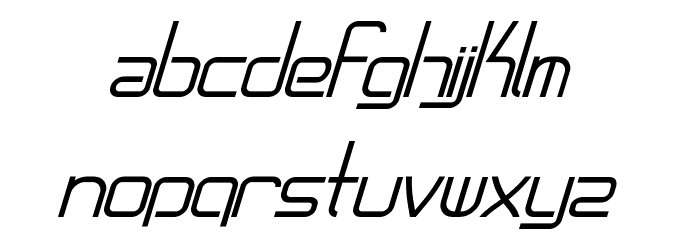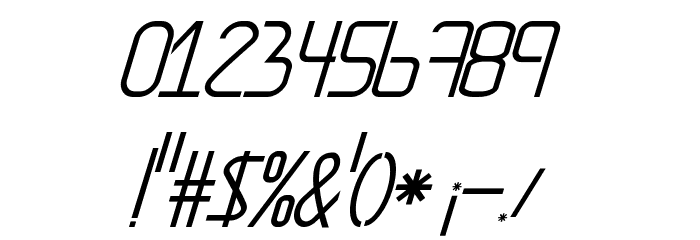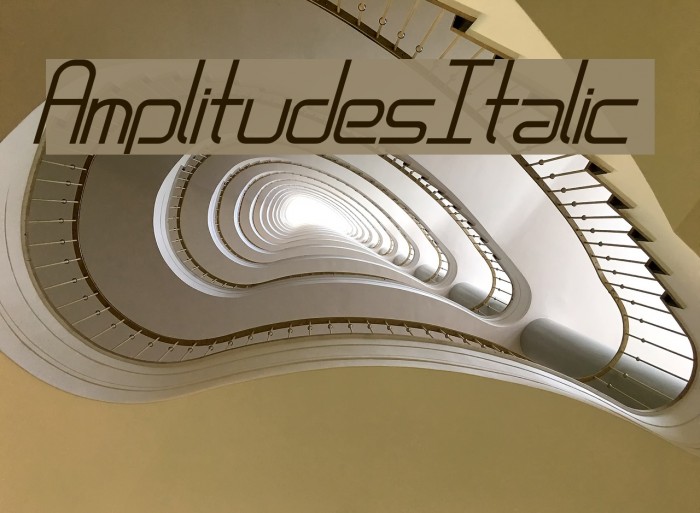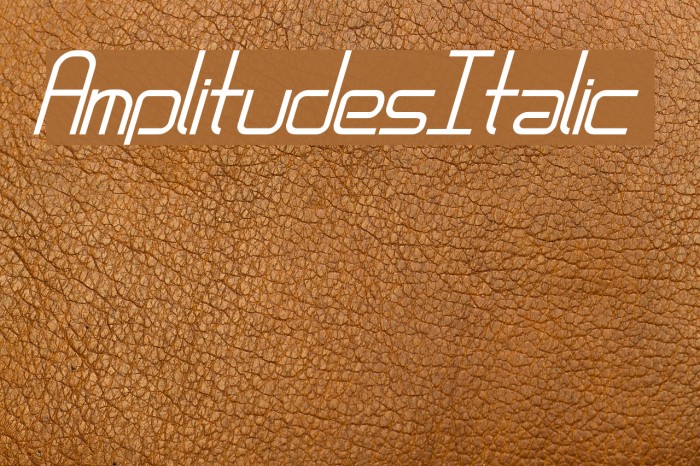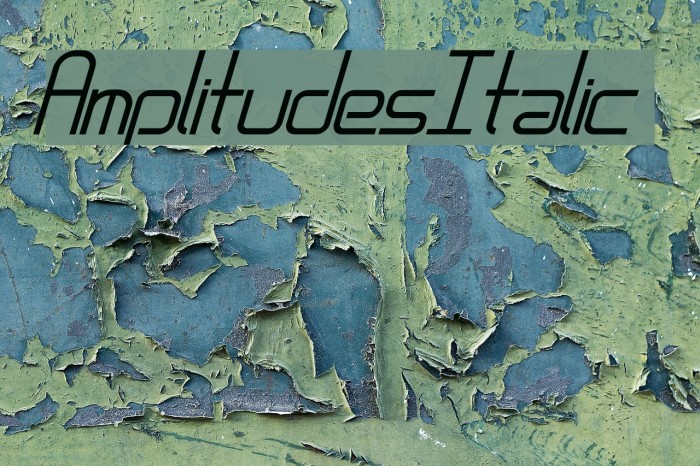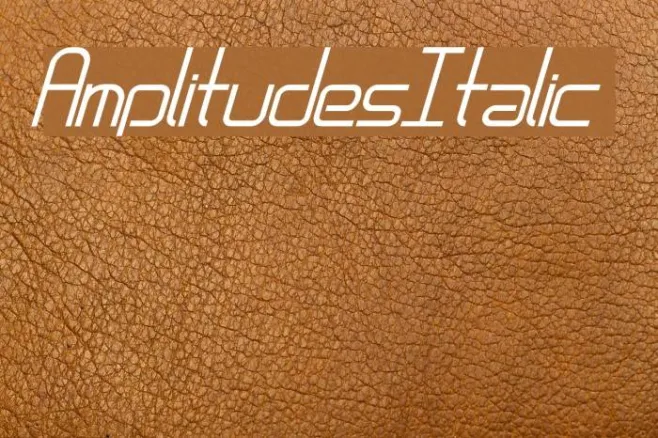
AmplitudesItalic Font
This font features a sleek, modern design with a distinct italic slant, giving it a dynamic and forward-moving appearance. The characters are elongated and slightly condensed, contributing to a streamlined look. The strokes are consistent in weight, providing a uniform and clean aesthetic. The uppercase letters are tall and commanding, while the lowercase letters maintain a balanced proportion. The numerals are clear and legible, matching the overall style of the alphabet. Special characters are designed with the same attention to detail, ensuring they integrate seamlessly with the rest of the typeface.
A sleek, modern italic font with a streamlined and dynamic appearance.
- Proposed Projects: Ideal for branding, advertising, and editorial design where a modern and energetic feel is desired.